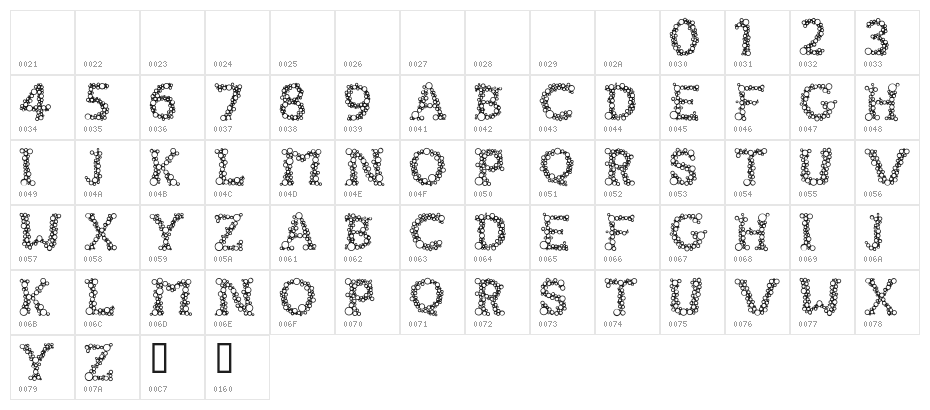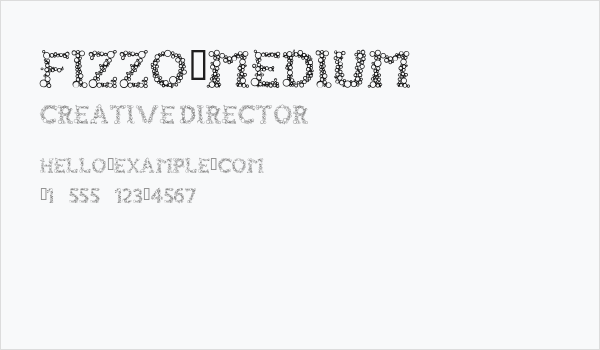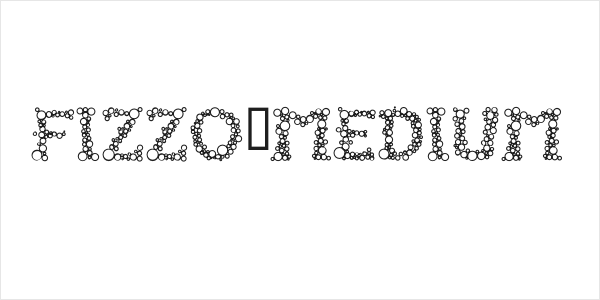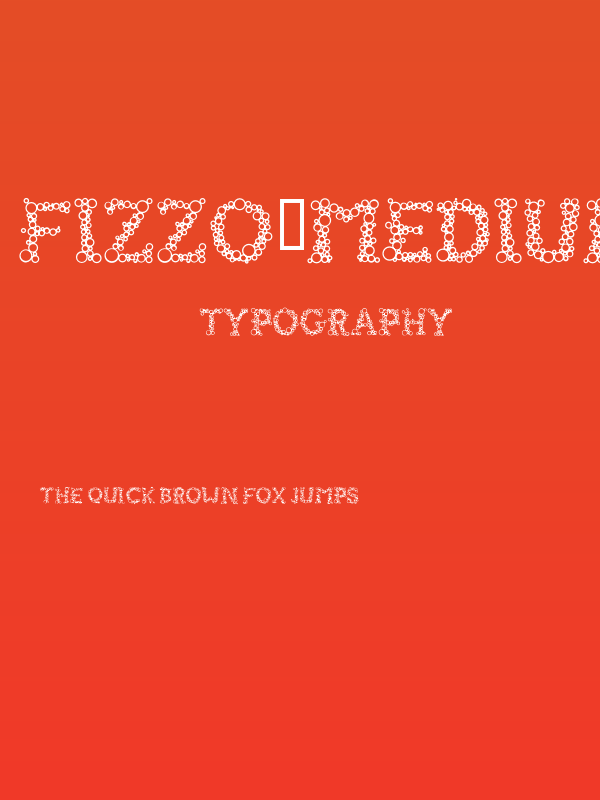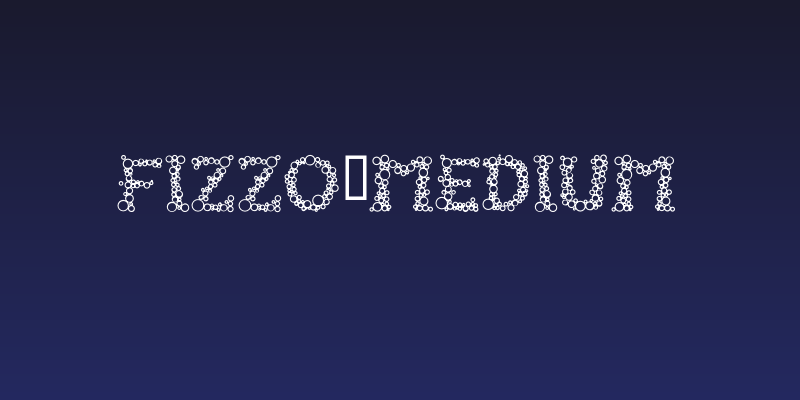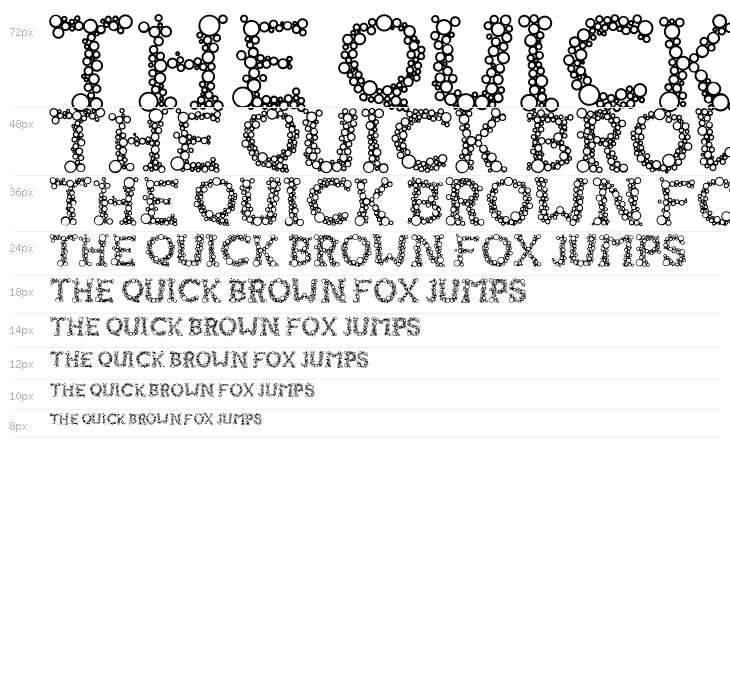
FIZZO-Medium Font
This font features a unique and playful design, composed entirely of small, interconnected circles forming each character. The letters and numbers are constructed with a consistent pattern of bubbles, giving it a whimsical and decorative appearance. The style is highly distinctive, making it suitable for creative and artistic projects. The characters maintain a uniform size and shape, ensuring readability despite the intricate design. This font is ideal for projects that require a fun and engaging visual element, such as children's books, party invitations, or playful branding materials.
Use CaseLogos, Headlines, Artistic projects
Proposed ProjectsIdeal for children's books, party invitations, playful branding, and artistic projects.